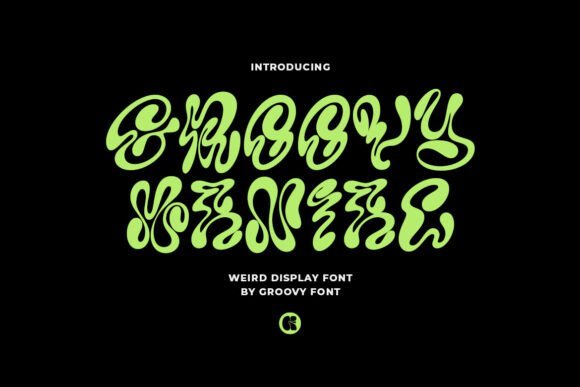
Get Ready to Groove: Unleashing the Power of Groovy Maniac Font
You know that moment when you’re brainstorming ideas for a new project, and suddenly, a spark of creativity hits you? The typeface that pops into your head is the perfect blend of quirky and charming, setting the tone for a truly unique design. For many designers, that moment is when they discover the Groovy Maniac Font – a delightfully weird display font that exudes a distinctive and cheerful feel.
This decorative typeface features winding, curved characters that add a playful and unconventional touch to your designs. With its unique and whimsical charm, the Groovy Maniac Font is perfect for projects that call for a bit of quirky creativity. Whether you’re designing a poster, a logo, or a social media campaign, this font brings a sense of fun and individuality to your work, making it stand out with its one-of-a-kind appeal.
Groovy Maniac Font Key Features
- Unique Characteristics: Groovy Maniac Font features a unique, hand-drawn design with a playful and energetic feel, perfect for creating eye-catching and attention-grabbing designs.
- Character Set: The font includes a comprehensive character set, including uppercase and lowercase letters, numbers, punctuation marks, and special characters.
Designer Review: Groovy Maniac Font
I’ve had the chance to work with the Groovy Maniac Font, and I must say it’s a unique addition to any design project. ✨ The font’s psychedelic vibes immediately grab your attention, making it perfect for music festivals, retro-themed designs, or anything that needs a dash of 70s flair.
Here are some aspects that really work well:
- ✨ Uniqueness: The Groovy Maniac Font stands out from the usual sans-serif fonts, offering a distinct visual identity that’s hard to ignore.
- ✨ Versatility: It can be used for a wide range of designs, from posters to social media graphics, and even logo designs.
- ✨ Playfulness: The font’s quirky nature adds a touch of whimsy to any project, making it perfect for designers who want to add some personality to their work.
- ⚠️ Readability: In certain font sizes or line lengths, the Groovy Maniac Font can become difficult to read, especially for longer blocks of text.
- ⚠️ Overuse: Its playful nature can make it feel overwhelming if overused, so it’s essential to balance it with other fonts or design elements.
Overall, the Groovy Maniac Font is a great addition to any designer’s toolkit, offering a fun and unique way to add some visual interest to projects. While it may have some limitations, its benefits far outweigh the drawbacks, making it a solid choice for designers who want to add some personality to their work.
Practical Application Guide: Groovy Maniac Font
To get the most out of the Groovy Maniac Font, try the following:
- Pair the font with bold or italic styles to add emphasis.
- Use the font for headings or titles to create a bold statement.
The Groovy Maniac Font is perfect for:
- Designing retro-themed graphics or posters.